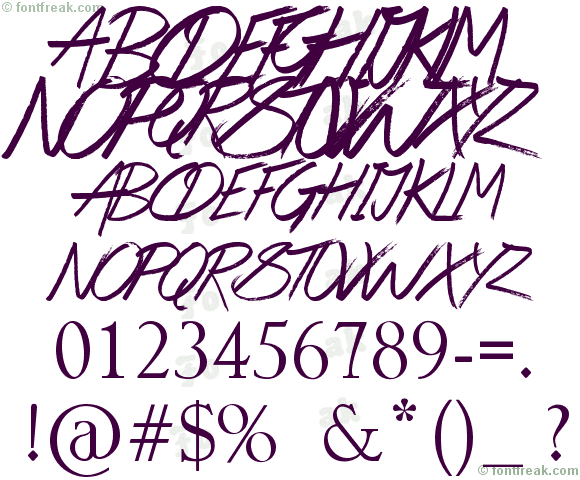
Be There Soon
About Be There Soon
The "Be There Soon" font, designed by Jonathan S. Harris, is a captivating handwritten typeface that exudes a casual yet artistic flair. As a script font, it features fluid strokes that mimic the natural motion of a pen, making it ideal for projects seeking a personal touch. The visual characteristics of this font include a medium stroke weight and varying contrast that create an inviting and dynamic appearance. The spacing is thoughtfully designed, allowing for easy readability while still maintaining an organic feel. Decorative elements, such as the playful swirls and slightly exaggerated curves of certain letters, enhance its charm, making it visually appealing.
This font is particularly well-suited for a variety of creative applications. It shines in wedding invitations, where its romantic essence can beautifully convey heartfelt messages. Additionally, "Be There Soon" is perfect for event posters, capturing attention with its unique style. Small business owners may find it ideal for branding materials, such as coffee shop menus or artisan product labels, where a personal, handcrafted aesthetic is desired. Content creators can also utilize this font for social media graphics, adding a distinctive flair to their visuals.
What makes this font stand out is its blend of artistry and accessibility. It manages to be both distinctive and versatile, allowing users to express creativity without sacrificing readability. Whether for formal occasions or casual projects, "Be There Soon" adds a unique touch that resonates with viewers.